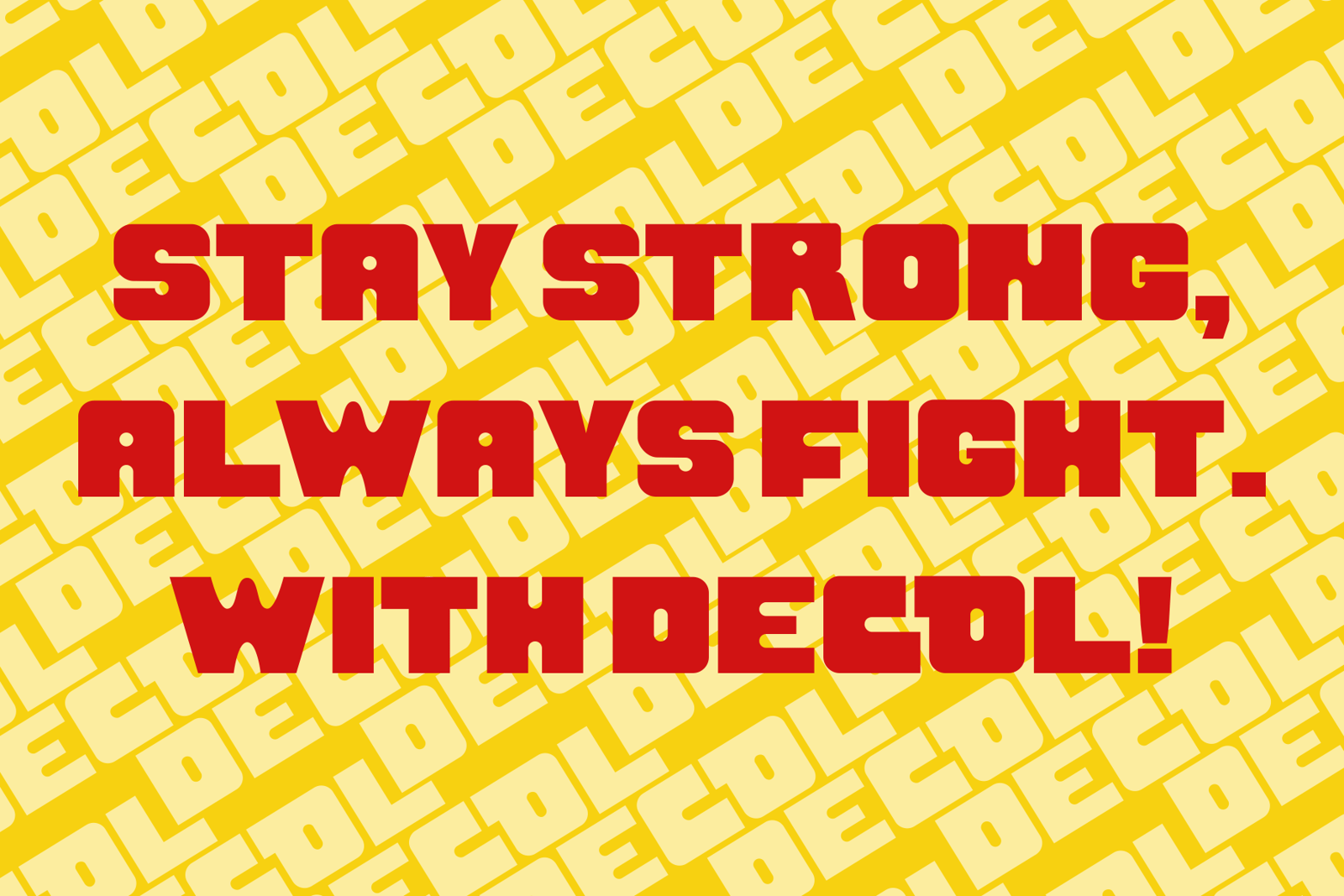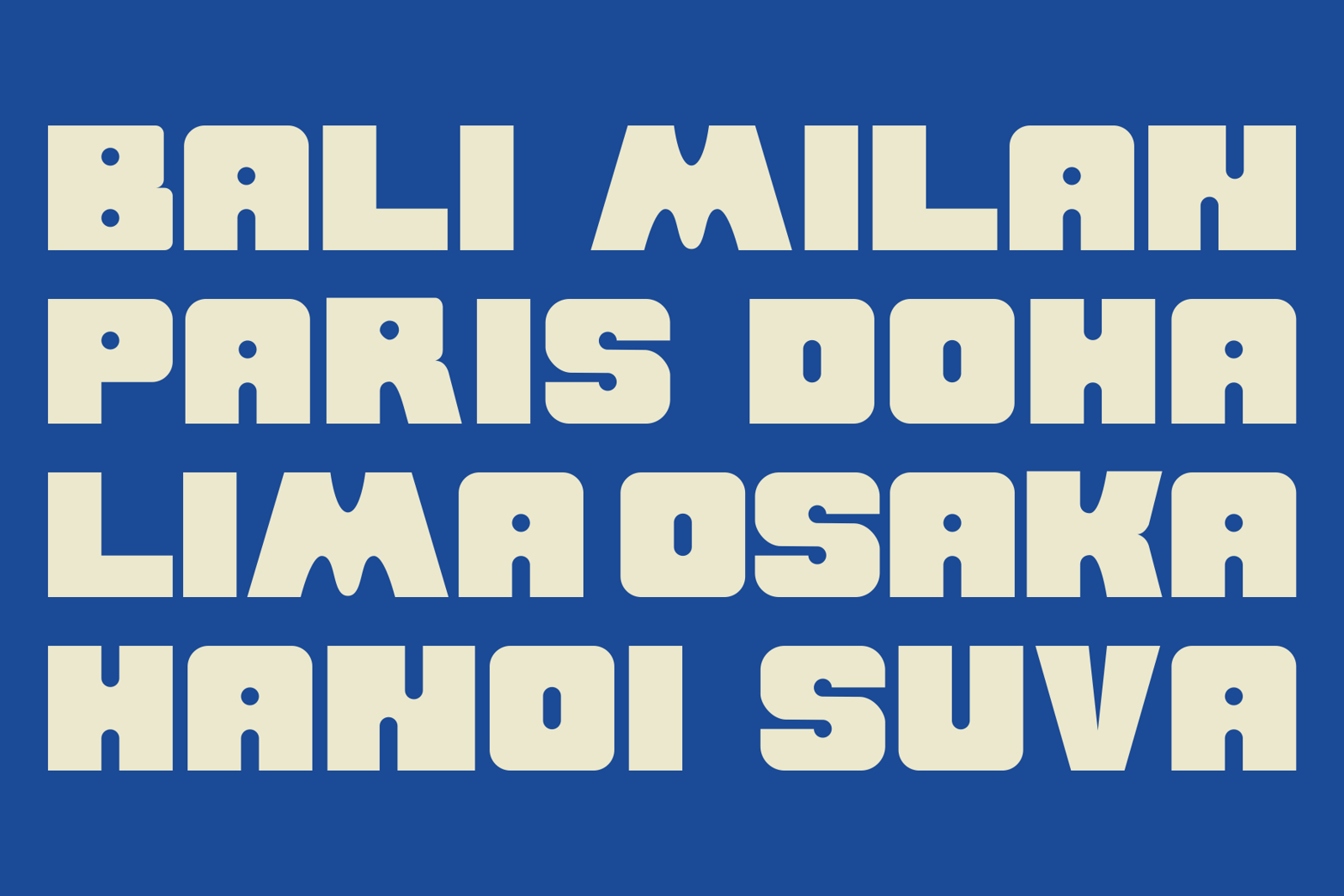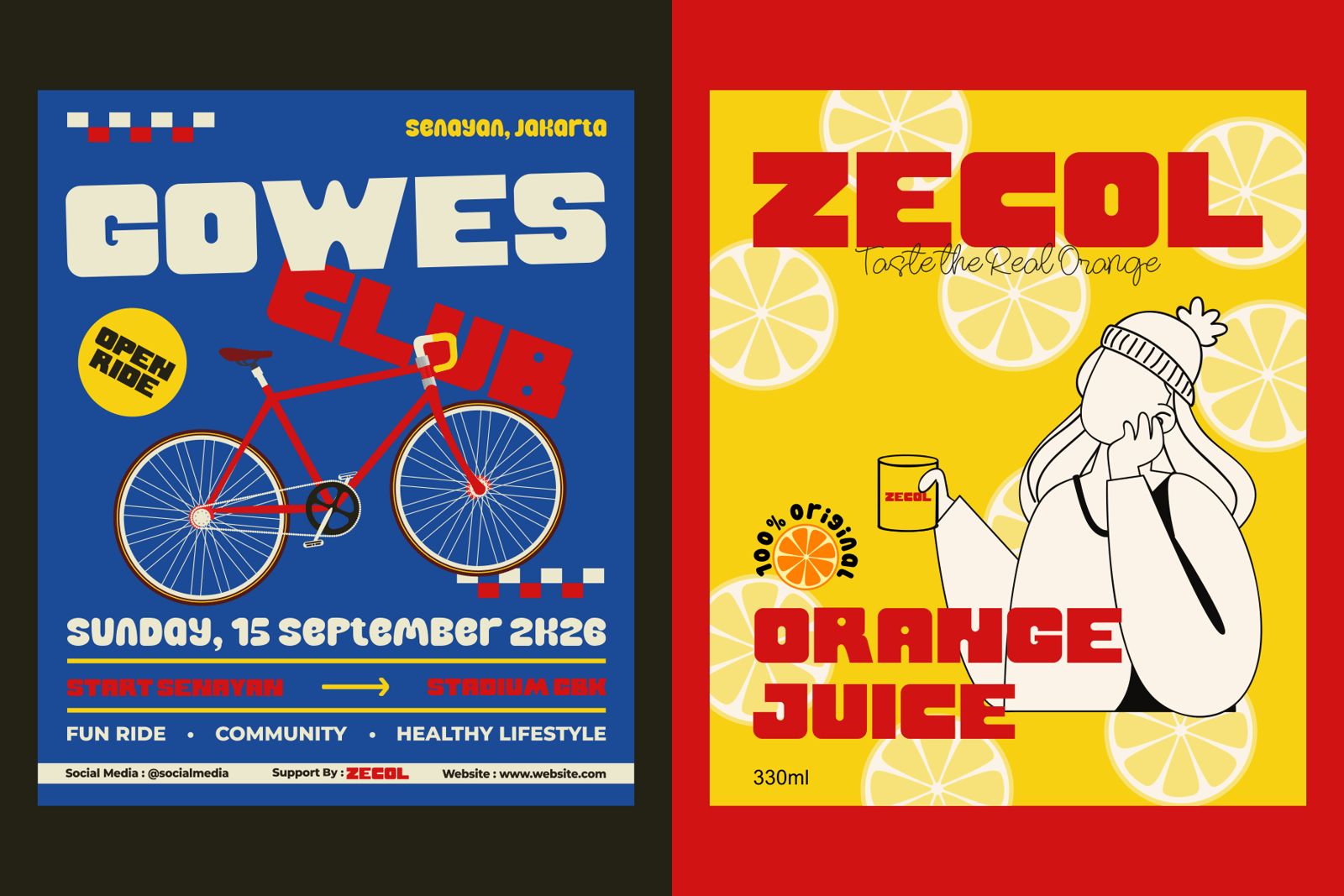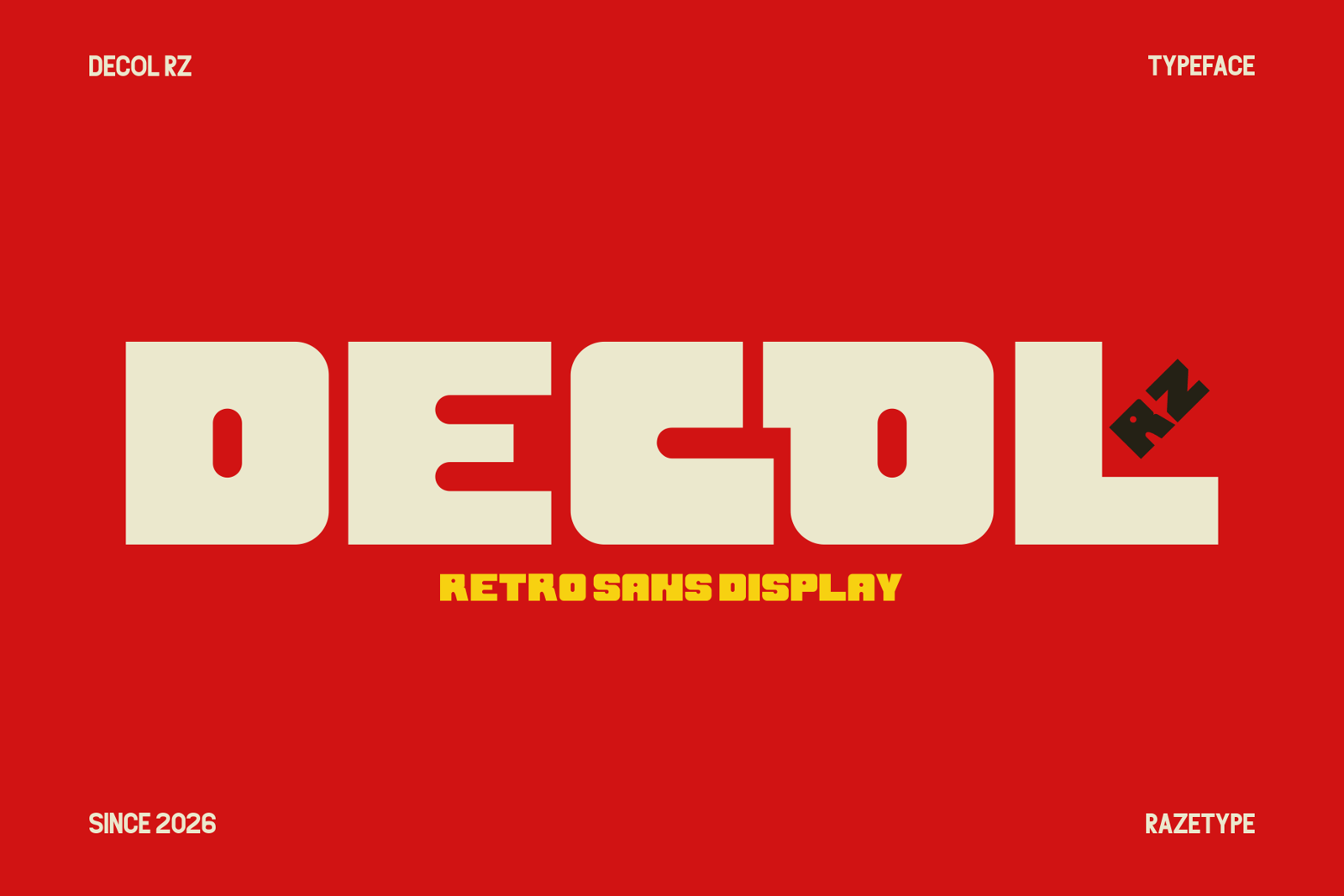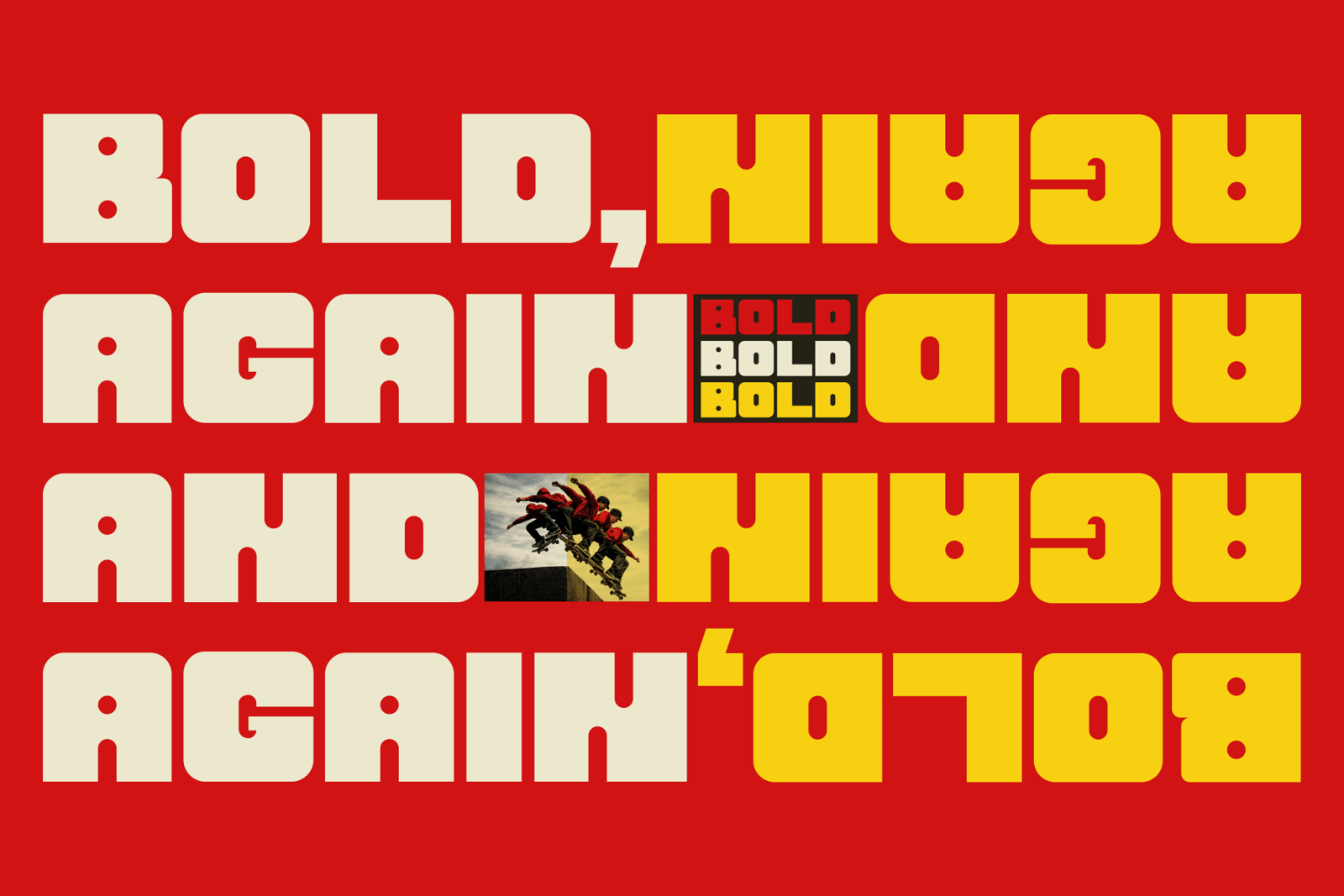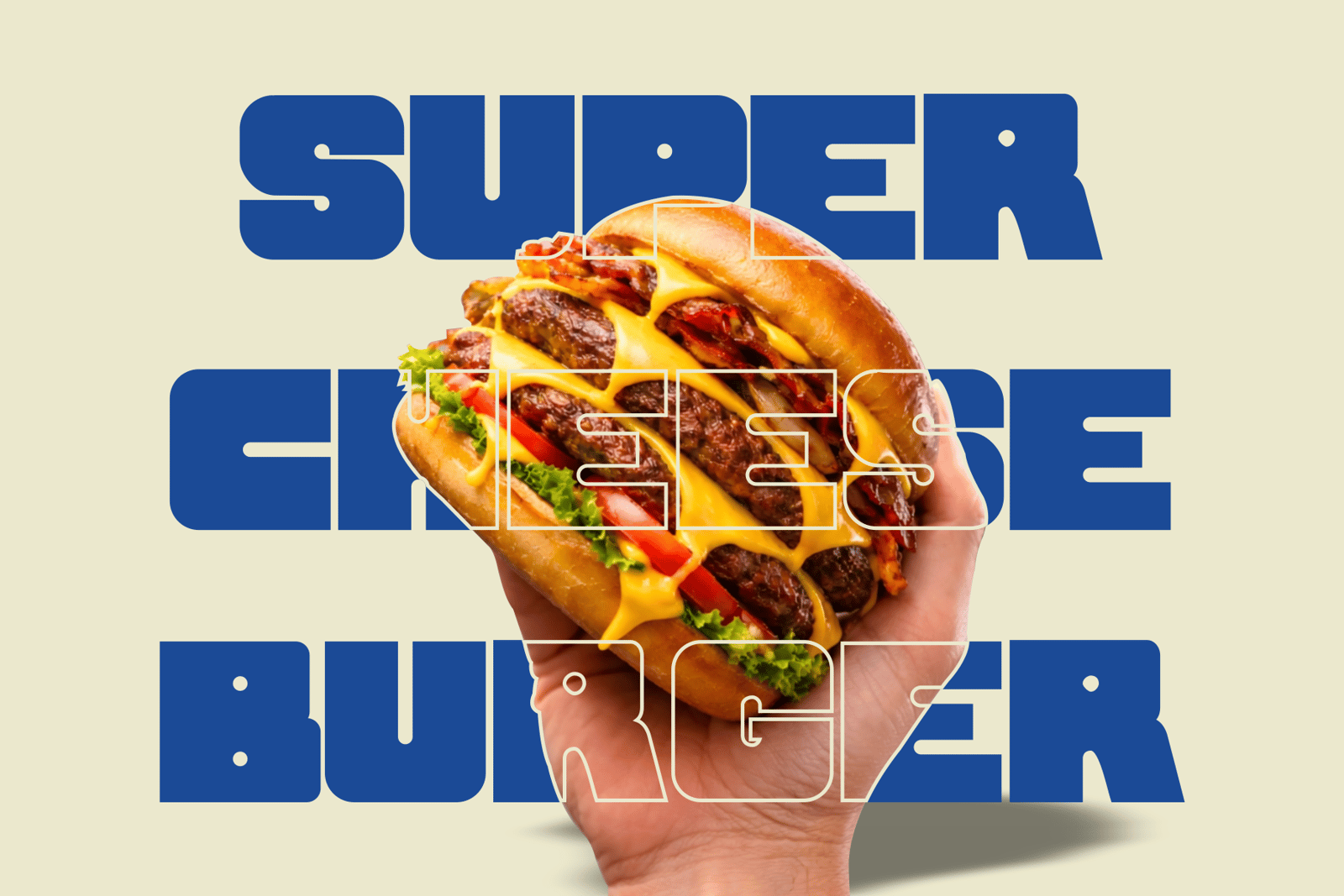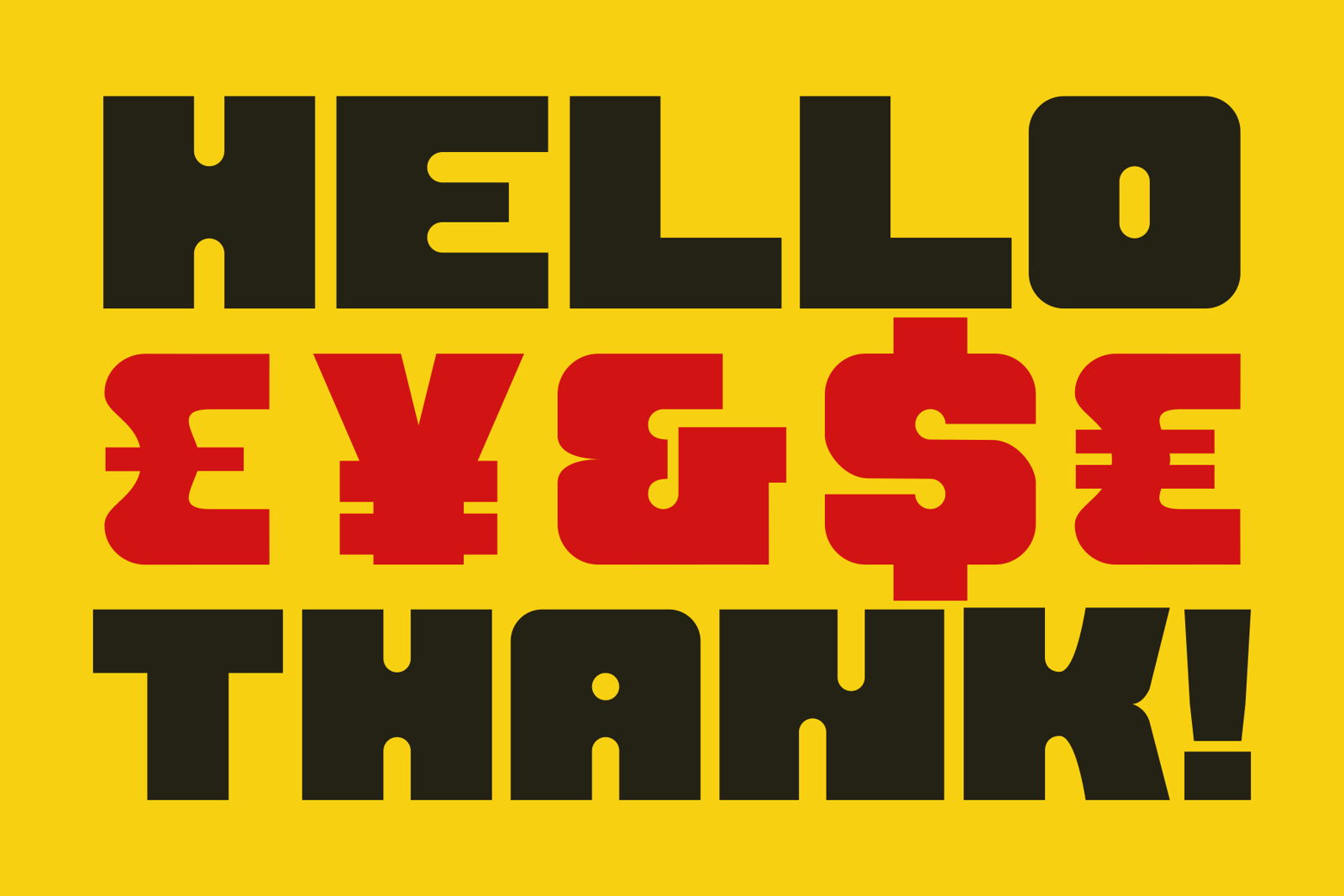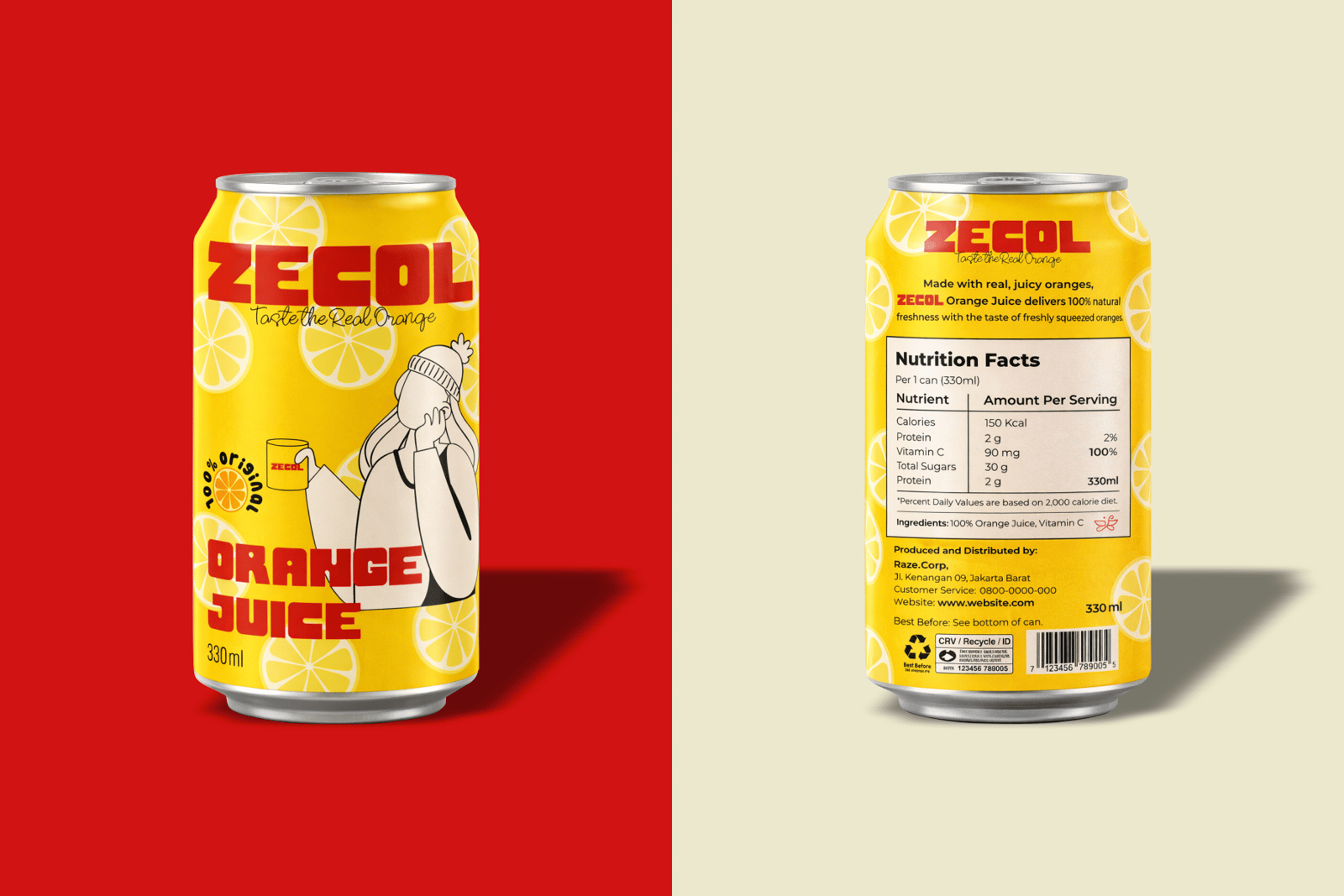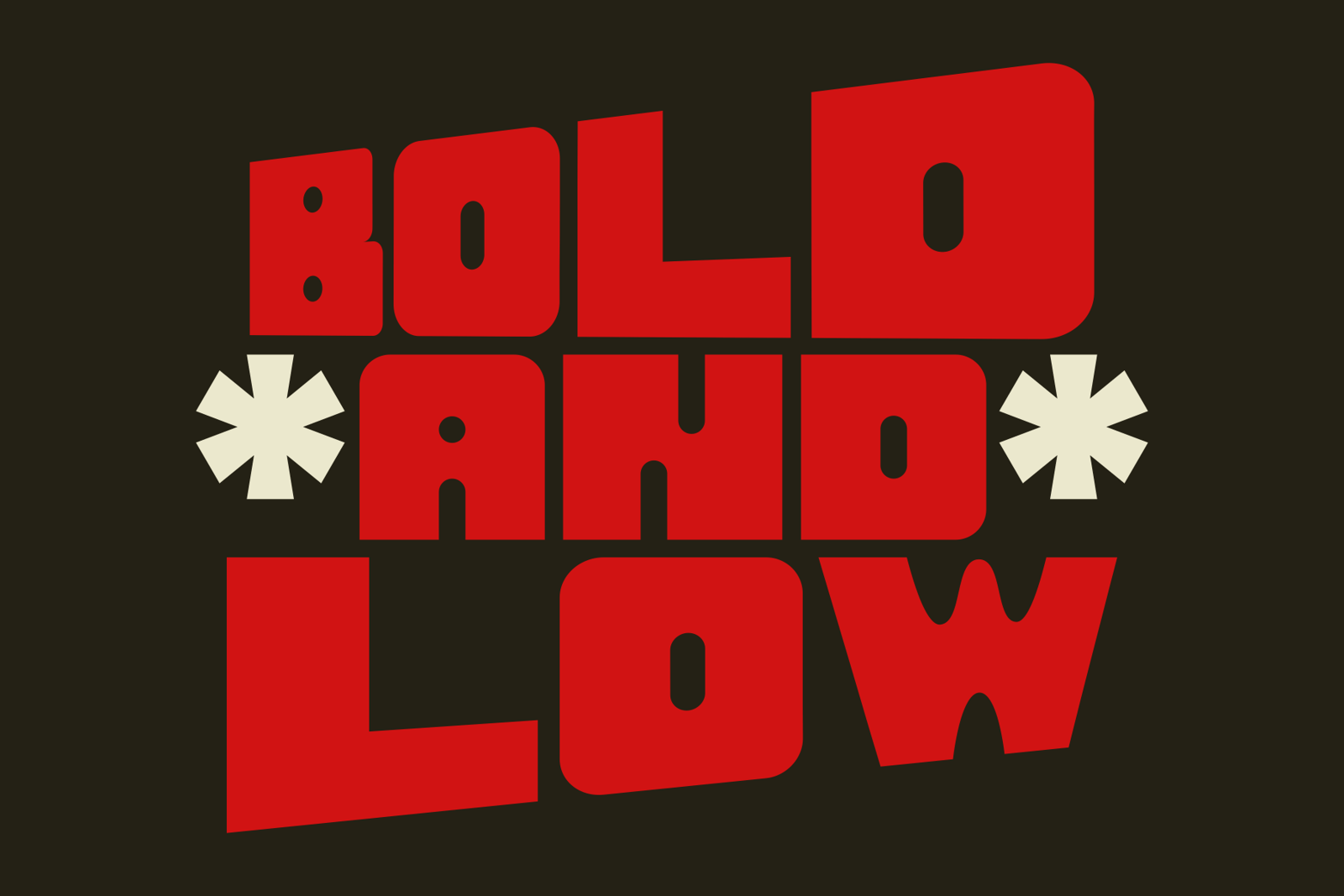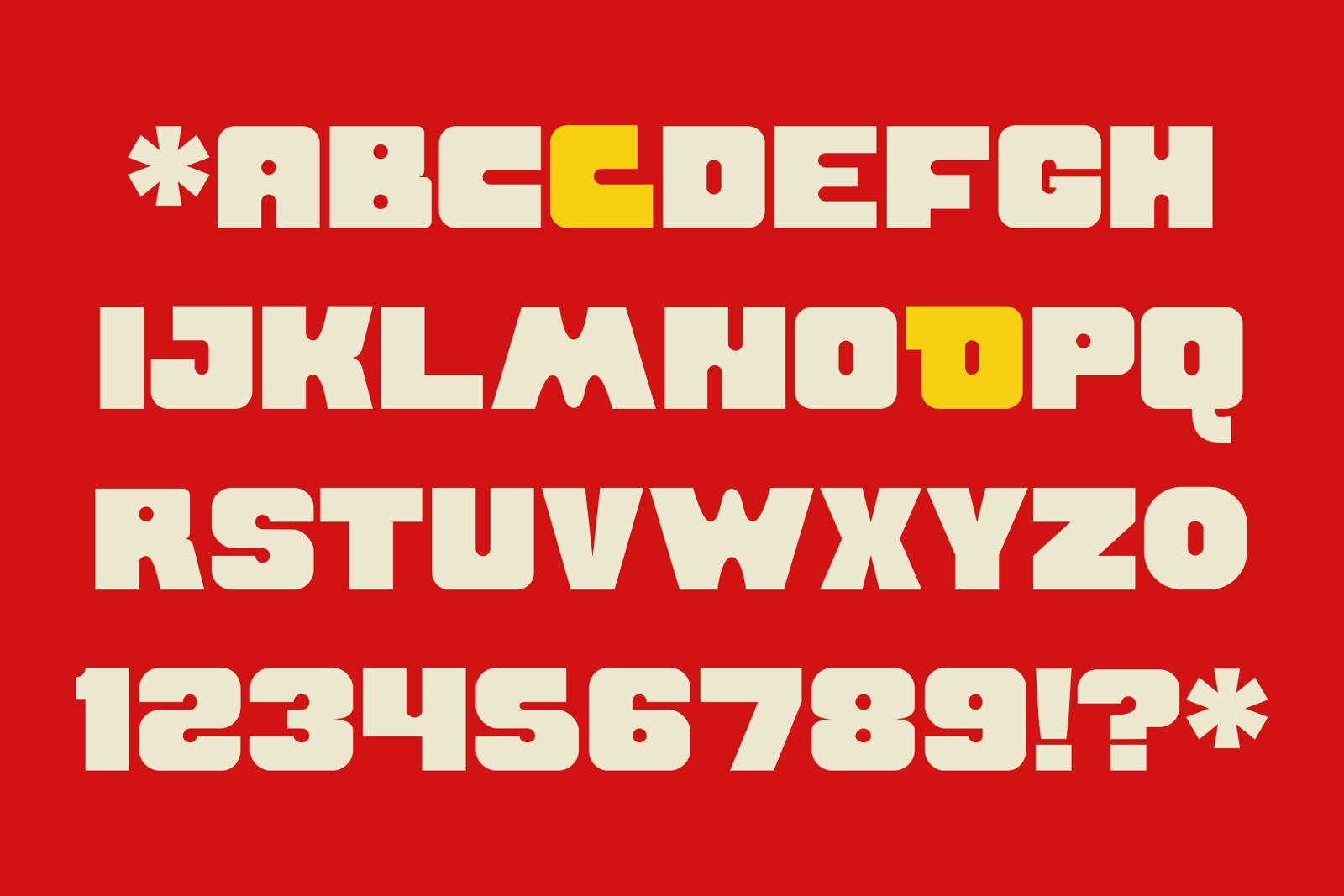
DECOL Rz Font
DECOL RZ, is a bold retro sans-serif display font that embodies a strong visual identity rooted in vintage aesthetics while maintaining a contemporary edge. Its letterforms are constructed with heavy, geometric proportions, characterized by wide, block-like structures and softened corners that create a balance between rigidity and approachability. The uniform stroke weight across all characters reinforces its solidity and visual impact, making it particularly effective for headlines, posters, and branding applications that demand immediate attention.